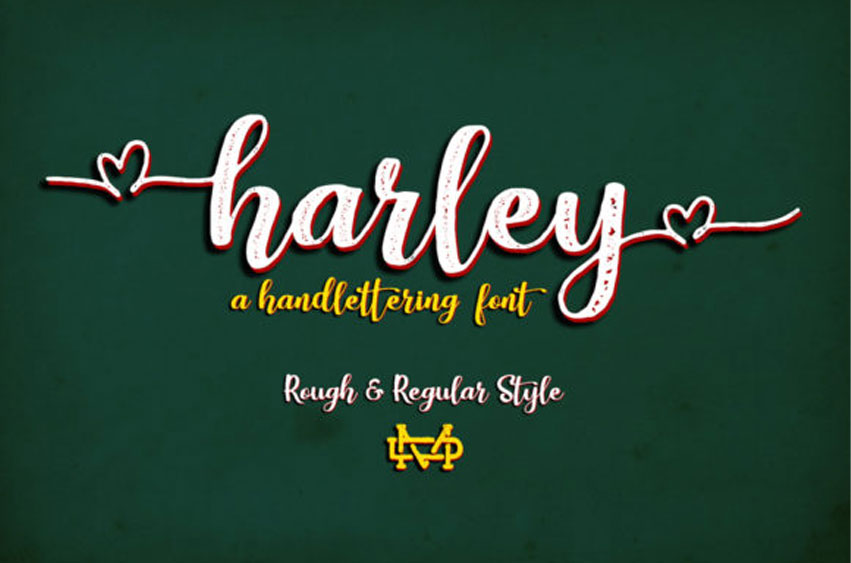
Harley Handlettering Font
Harley Handlettering Font is a fun and beautiful handwritten font with lots of authentic charm!
Get inspired by its unique feel.